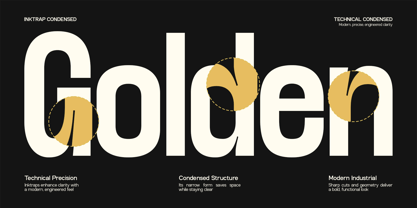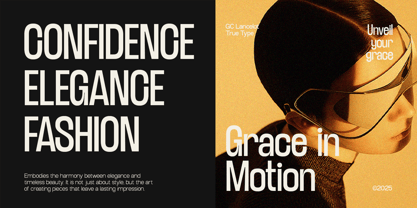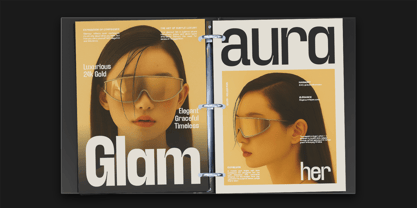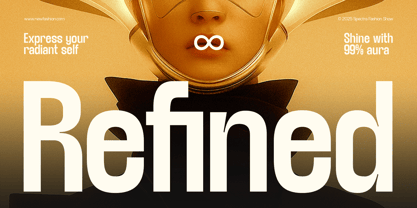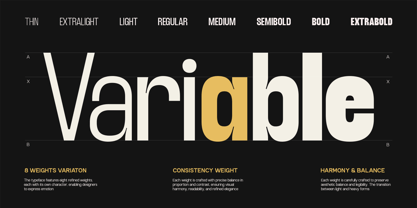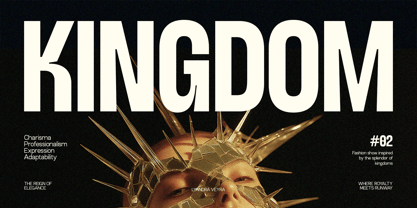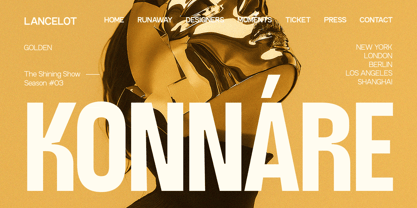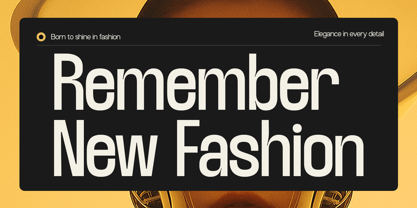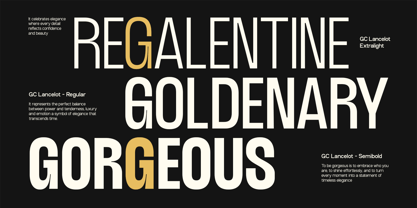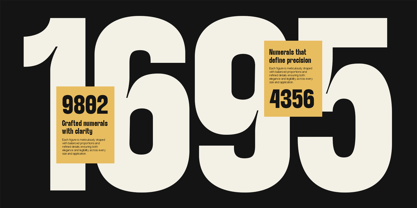
TRT Lancelot
by True Type Lab
The TRT Lancelot Font Family was designed by Yusilo Oktaprima Ardani and published by True Type Lab. TRT Lancelot contains 8 styles and family package options.
TRT Lancelot is a modern condensed typeface featuring distinctive inktrap details and a full range of weights from Thin to Extra Bold. Its compact structure and sharp inktraps create a strong visual identity, making it perfect for impactful headlines, branding, posters, and editorial layouts. Designed for both clarity and character, TRT Lancelot balances clean geometry with expressive shapes, delivering excellent readability even at small sizes while standing out boldly at larger scales. This versatility makes it a reliable choice for designers seeking a modern condensed font with a unique twist.